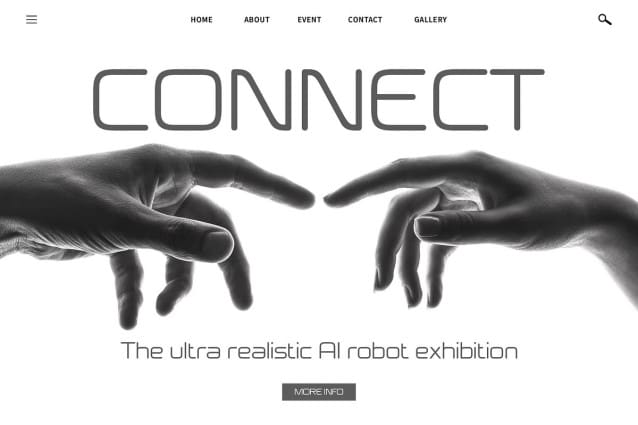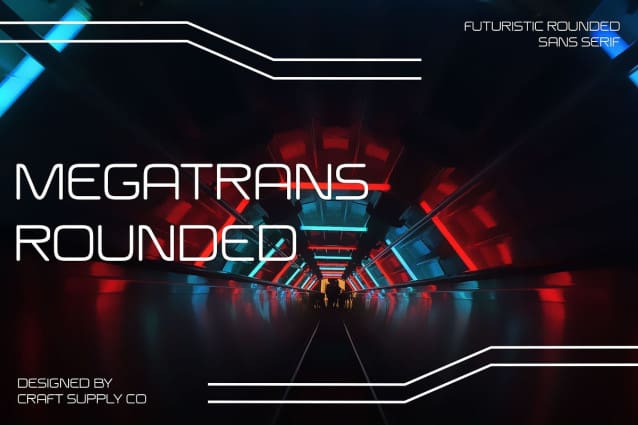
Megatrans Rounded Font
Megatrans Rounded Font: Embracing Futuristic Elegance. A Glimpse into the Future Megatrans Rounded presents a sans serif typeface with a futuristic aesthetic, characterized by its low contrast and rounded stem terminals. This font embodies the essence of modernity and innovation.
Soft and Elegant Design With its rounded stem terminals and low-contrast letterforms, This font exudes elegance and softness. Its sleek appearance adds a touch of sophistication to any design project, creating a harmonious visual experience.
Versatile Application This font is suitable for a wide range of applications, from digital interfaces to branding and print materials. Its futuristic yet elegant design makes it adaptable to various design contexts, offering flexibility and versatility.
Modernity and Sophistication In summary, This font strikes the perfect balance between modernity and sophistication. Its futuristic design elements, combined with soft and elegant aesthetics, make it a versatile choice for designers seeking to infuse their projects with a sense of innovation and refinement.